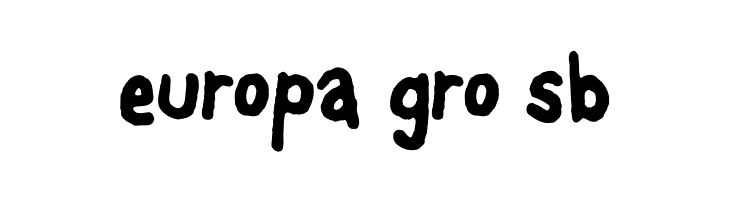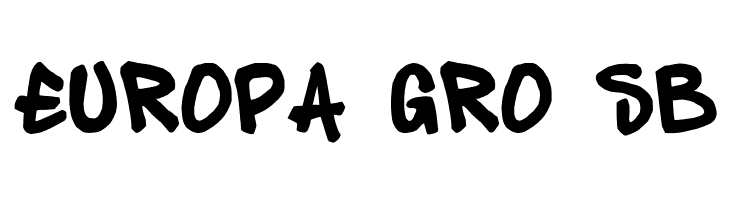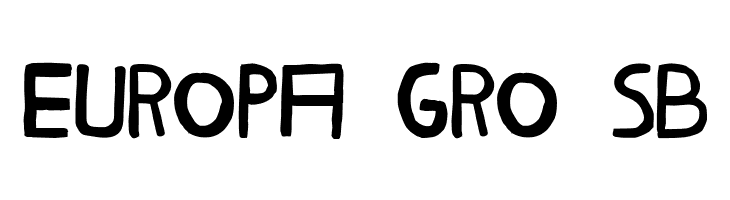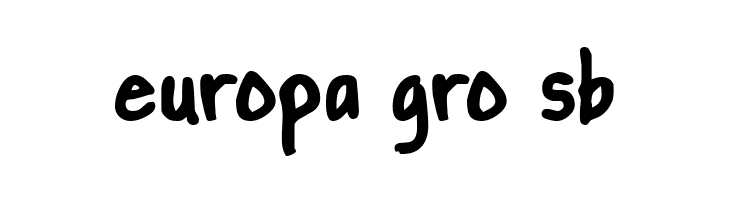
A bold, dynamic font with thick strokes and a strong visual impact.
A casual, handwritten font with dynamic, slanted strokes and varying thickness.
A playful, hand-drawn font with thick, rounded characters and a whimsical style.
A bold, playful handwritten font with thick strokes and rounded edges.